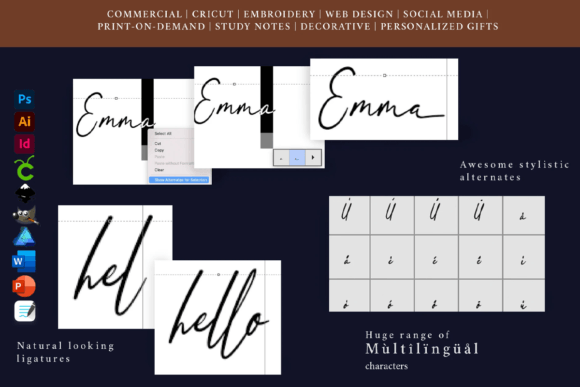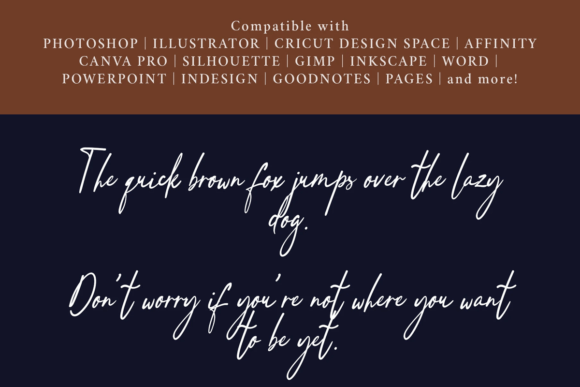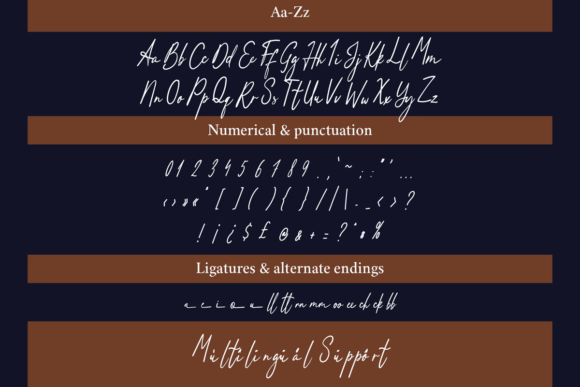
Introducing the Brooklyn Font: Elevate Your Creative Projects with a Unique Lined Hand-Crafted Script Font
Are you tired of using the same old fonts for your creative projects? Do you want to add a touch of personality and elegance to your designs? Look no further than the Brooklyn font, a stunning lined hand-crafted script font that’s perfect for designers, crafters, and anyone looking to elevate their typography game.
What is the Brooklyn Font?
The Brooklyn font is a one-of-a-kind, hand-crafted script font that’s been carefully designed to bring a touch of sophistication and whimsy to your designs. With its unique lined aesthetic, this font is perfect for creating eye-catching headlines, titles, and text that will make your projects stand out from the crowd.
Key Features of the Brooklyn Font
• Hand-crafted with love: Each letter has been carefully crafted by hand to ensure a unique and personal touch.
• Lined aesthetic: The font’s lined design adds a touch of elegance and sophistication to your designs.
• Script font: The Brooklyn font is a script font that’s perfect for creating flowing, connected text.
• Multilingual support: The Brooklyn font supports multiple languages, making it perfect for international designers and crafters.
Why Choose the Brooklyn Font?
So why choose the Brooklyn font for your creative projects? Here are just a few reasons:
• Add a touch of personality: The Brooklyn font is a unique and eye-catching font that will add a touch of personality to your designs.
• Stand out from the crowd: With its lined aesthetic and hand-crafted design, the Brooklyn font is sure to make your projects stand out from the crowd.
• Perfect for creative projects: Whether you’re a designer, crafter, or DIY enthusiast, the Brooklyn font is perfect for a wide range of creative projects, from branding and advertising to crafting and scrapbooking.
• Use it for headlines and titles: The Brooklyn font is perfect for creating eye-catching headlines and titles that will grab attention.
• Experiment with different colors and textures: The lined aesthetic of the Brooklyn font makes it perfect for experimenting with different colors and textures.
• Pair it with other fonts: The Brooklyn font pairs perfectly with other fonts – try pairing it with a bold sans-serif font for a striking contrast.
In conclusion, the Brooklyn font is a unique and eye-catching lined hand-crafted script font that’s perfect for designers, crafters, and anyone looking to elevate their typography game. With its easy installation, multilingual support, and versatility, the Brooklyn font is a must-have for any creative project. So why wait? Download the Brooklyn font today and start adding a touch of personality and elegance to your designs!